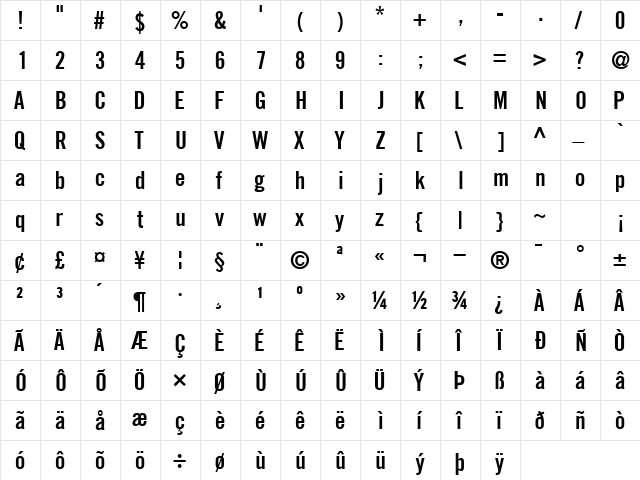
CommerceCondSSK SemiBold Font Preview
CommerceCondSSK SemiBold
Design Context for CommerceCondSSK Typeface
CommerceCondSSK offers clean, dependable letterforms without strong stylistic allegiance, making it a practical choice for designers who need flexibility. Its bold stroke weight gives it real presence on the page. Its narrow stance lets it pack a punch even in space-constrained designs.